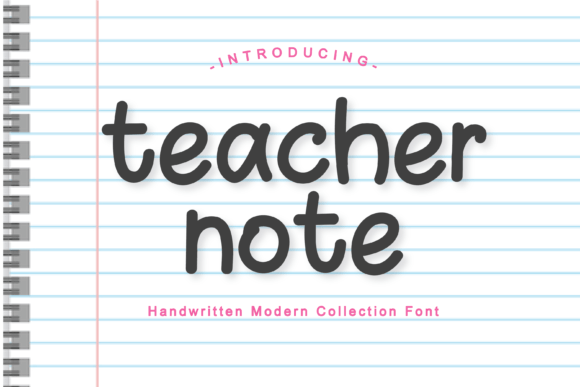
Dive into the world of Teacher Note Font, a captivating script font that dances across your designs with elegance and charm. Its delicate curves and playful strokes add a touch of whimsy to any project, making it the perfect choice for adding a personal touch to your creative endeavors.
Unleash your inner artist and let Teacher Note Font guide your imagination. Its versatility knows no bounds, lending itself beautifully to a wide range of projects, from heartfelt letters and elegant invitations to eye-catching social media posts and stunning branding materials. Transform your words into works of art, captivating your audience with every stroke.
With Teacher Note Font, you'll discover a font that speaks to your heart. Its charming imperfections and subtle variations bring a sense of authenticity to your designs, making them feel truly unique and personal. Let your words flow freely, knowing that Teacher Note Font will capture every nuance and emotion with grace and style.
Explore the boundless possibilities of Teacher Note Font and let your creativity flourish. Its effortless charm will elevate your projects to new heights, adding a touch of magic to every design. Embrace the beauty of handwritten fonts and let Teacher Note Font guide you on a journey of self-expression and artistic exploration.